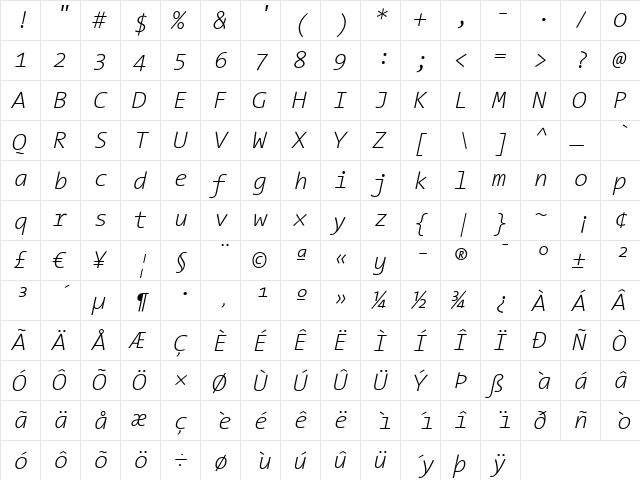
TheSans Mono ExtraLight Italic Font Preview
| Style | ExtraLight Italic |
| Foundry | Luc\(as\) de Groot |
Design Context for TheSans Mono Typeface
TheSans Mono uses fixed-width spacing throughout, giving it the structured, systematic character associated with coding environments and technical documentation. The dynamic lean of this cut emphasises speed and emphasis in any layout. The delicate stroke weight brings airiness and refinement to layouts.